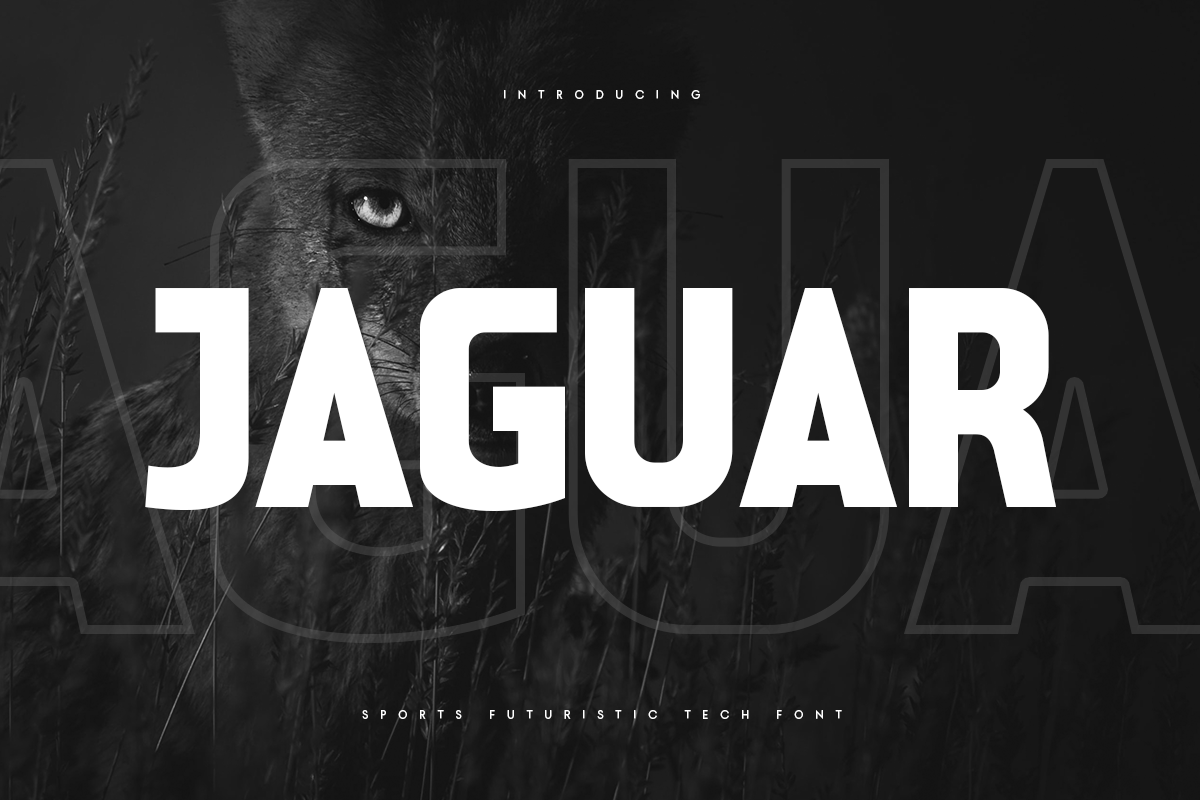
Jaguar - Sports Futuristic Tech Font
Dominate your designs with Jaguar - the ultimate sports futuristic tech font for modern branding. Jaguar brings a cutting-edge futuristic style specifically crafted for sport and technology design projects. This modern typeface delivers the perfect solution for designers and product owners who need their brands to stand out with a unique, sporty edge. The font features: Complete uppercase and lowercase character sets Full numbers and punctuation marks Regular and outline style variations 4 file ...